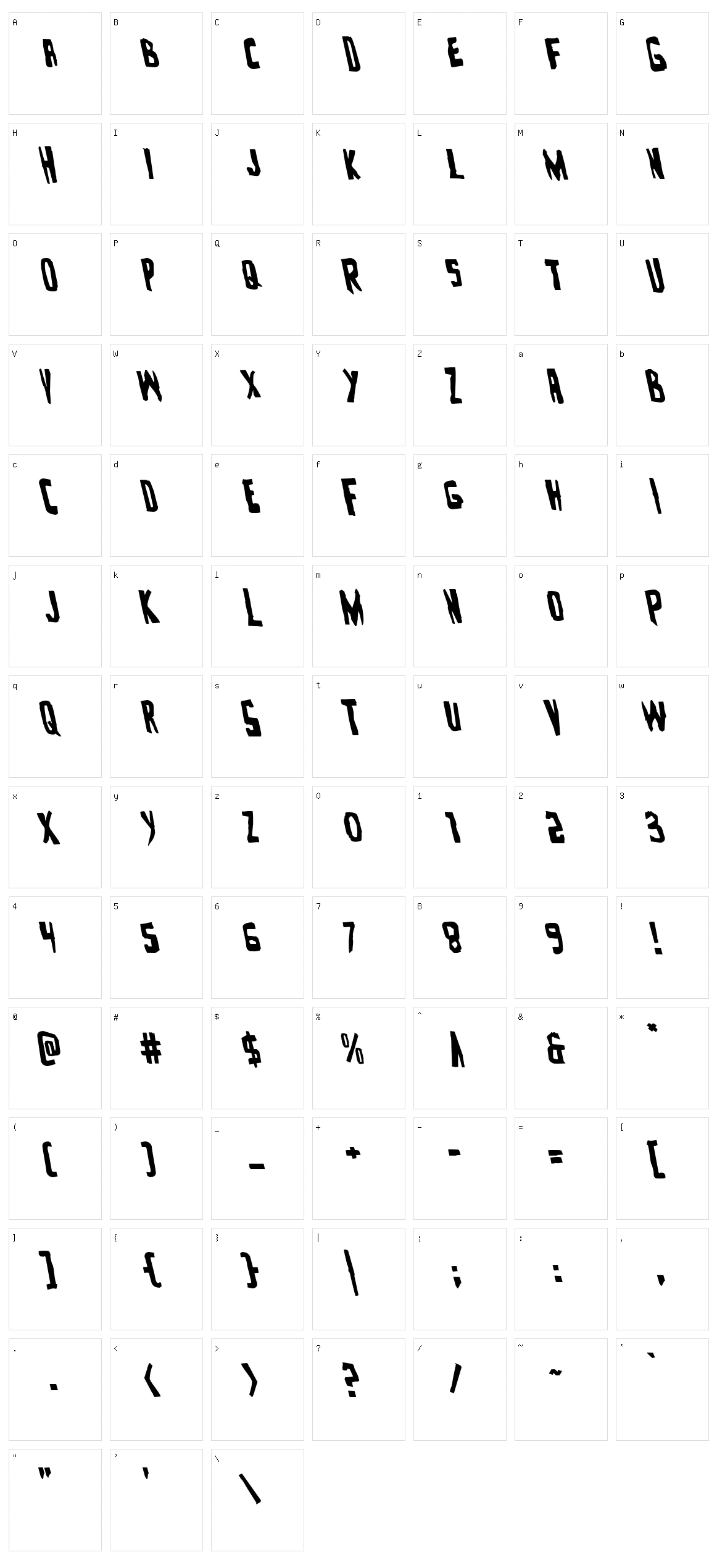
The free font Zakenstein is carefully designed by Iconian Fonts, showcasing a thoughtful balance of creativity and usability and falls under the Horror font style. When you download the ZIP file, it contains only 623.1 KB of font files, making it lightweight and quick to download. Please review the license details below to understand permitted usage and distribution rights. If license information is not available, we recommend using this font for personal projects only or contacting the author directly for commercial usage permissions.
This font comes with the following 12 versions: Regular, Italic, Condensed, Condensed Italic, Expanded, Expanded Italic, 3D, 3D Italic, Outline, Outline Italic, Leftalic and Rotalic.